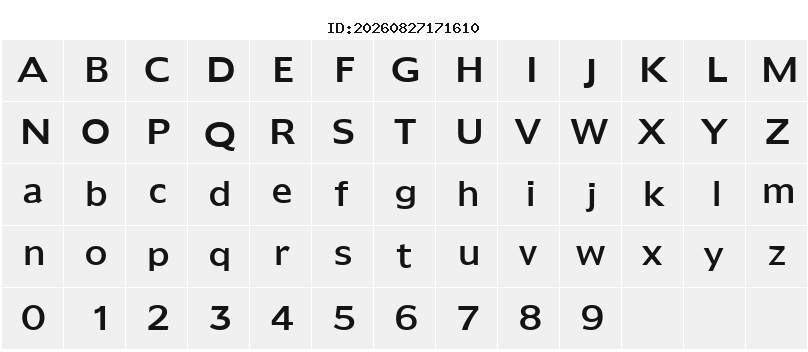
About 00254.ttf
00254.ttf is a modern, elegant sans-serif font designed for ultimate readability and visual harmony. Perfect for branding, headlines, web design, and print materials.